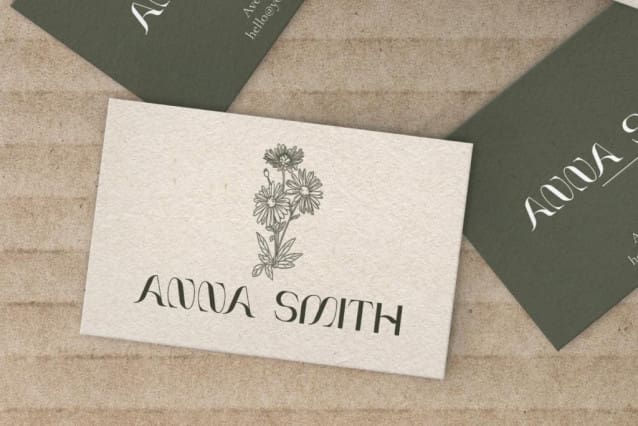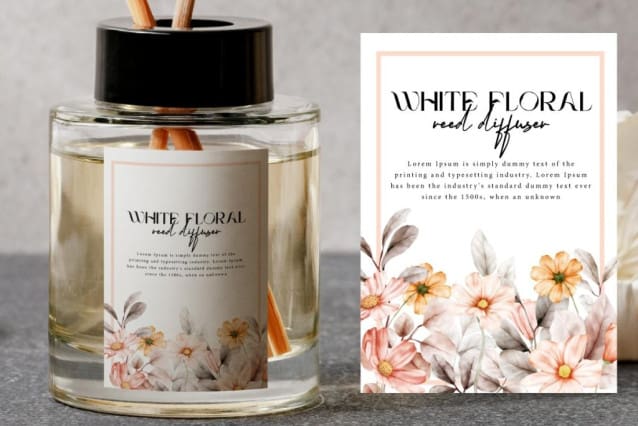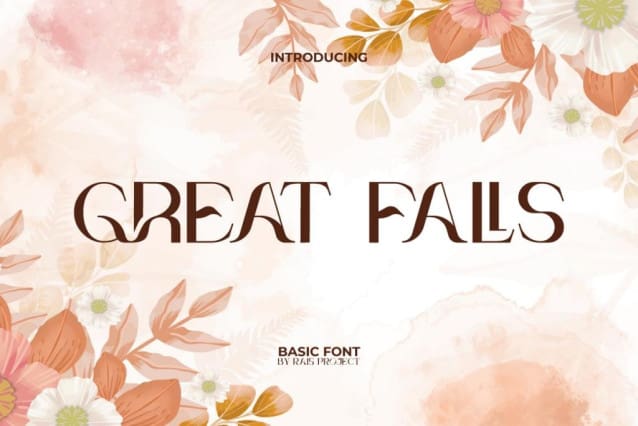
Great Falls Font
Great Falls Font is an elegant and stylish modern display font by RaisProject.. Each letter in this font has a delicate autumn leaf shape implied and combined with beautiful thin lines. It will be good for any designs, such as advertisement, brand image, custom design, greeting card, invitation, magazine, menu, poster, product packaging, quote, web page, and more!
Great Falls Font includes complete set of ALL CAPS for Uppercase and Lowercase, Numerals, Punctuation, and Symbol. This font also has ligature characters and will suit a wide range of industries, such as fashion, furniture, jewelry and accessories, perfume, printing, publishing, restaurant, etc.